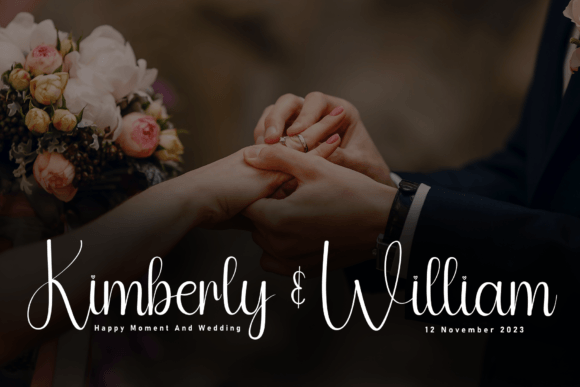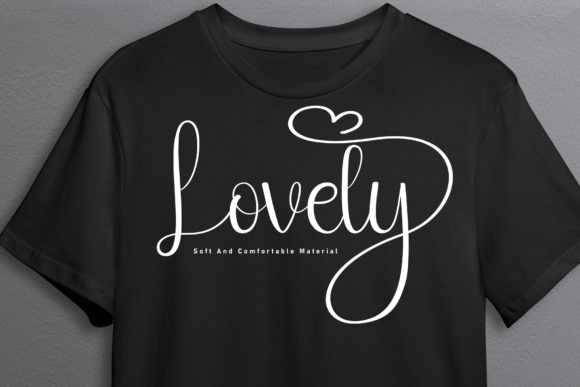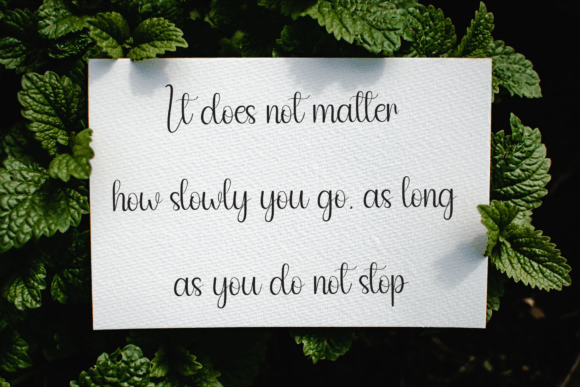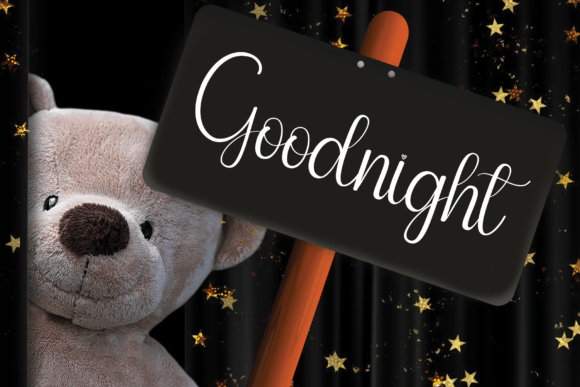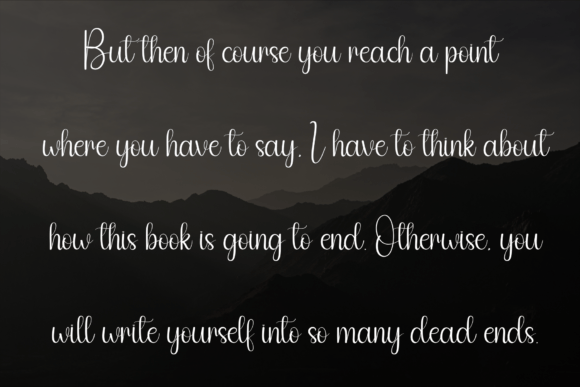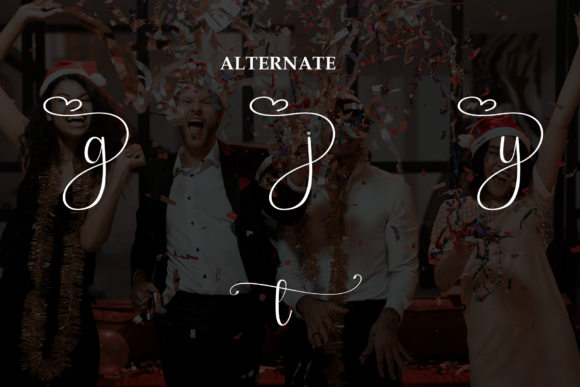
Christmas Dancing Font: Add a Fun Touch to Your Designs
Are you looking for a font that can add a playful and festive touch to your designs? Look no further than the Christmas Dancing Font! This sweet and friendly handwritten display font is perfect for creating fun and engaging designs for various occasions, including Christmas, weddings, and more.
What is Christmas Dancing Font?
Christmas Dancing Font is a cute and fun handwritten display font that is ideal for writing wedding invitations, cards, or any other design that might need a fun touch. The font is designed to be sweet and friendly, making it perfect for designers and crafters who want to add a personal touch to their work.
Key Features of Christmas Dancing Font
- Cute and Fun Design: The Christmas Dancing Font has a playful and festive design that is sure to add a fun touch to your designs.
- Handwritten Display Font: The font has a handwritten feel that gives it a personal and friendly touch.
- Ideal for Various Occasions: The font is perfect for designing wedding invitations, cards, and other materials for special occasions.
- Easily Readable: The font is designed to be easily readable, making it perfect for use in a variety of designs.
Why Use Christmas Dancing Font?
There are many reasons why you should consider using the Christmas Dancing Font in your designs. Here are a few:
- Adds a Personal Touch: The font has a personal and friendly feel that can add a touch of warmth to your designs.
- Perfect for Festive Designs: The font is designed to be festive and fun, making it perfect for creating Christmas, wedding, and other special occasion designs.
- Versatile: The font can be used in a variety of designs, from wedding invitations to holiday cards.
Design Ideas Using Christmas Dancing Font
Here are a few design ideas that you can use the Christmas Dancing Font for:
- Wedding Invitations: Use the font to create fun and festive wedding invitations.
- Holiday Cards: Use the font to create Christmas, Hanukkah, and other holiday cards.
- Party Invitations: Use the font to create invitations for birthday parties, baby showers, and other celebrations.
- Social Media Graphics: Use the font to create fun and engaging social media graphics.
In conclusion, the Christmas Dancing Font is a fun and festive font that is perfect for designers and crafters who want to add a playful touch to their designs. With its cute and friendly design, this font is ideal for creating wedding invitations, holiday cards, and other special occasion designs. So why not give it a try and see what amazing designs you can create?